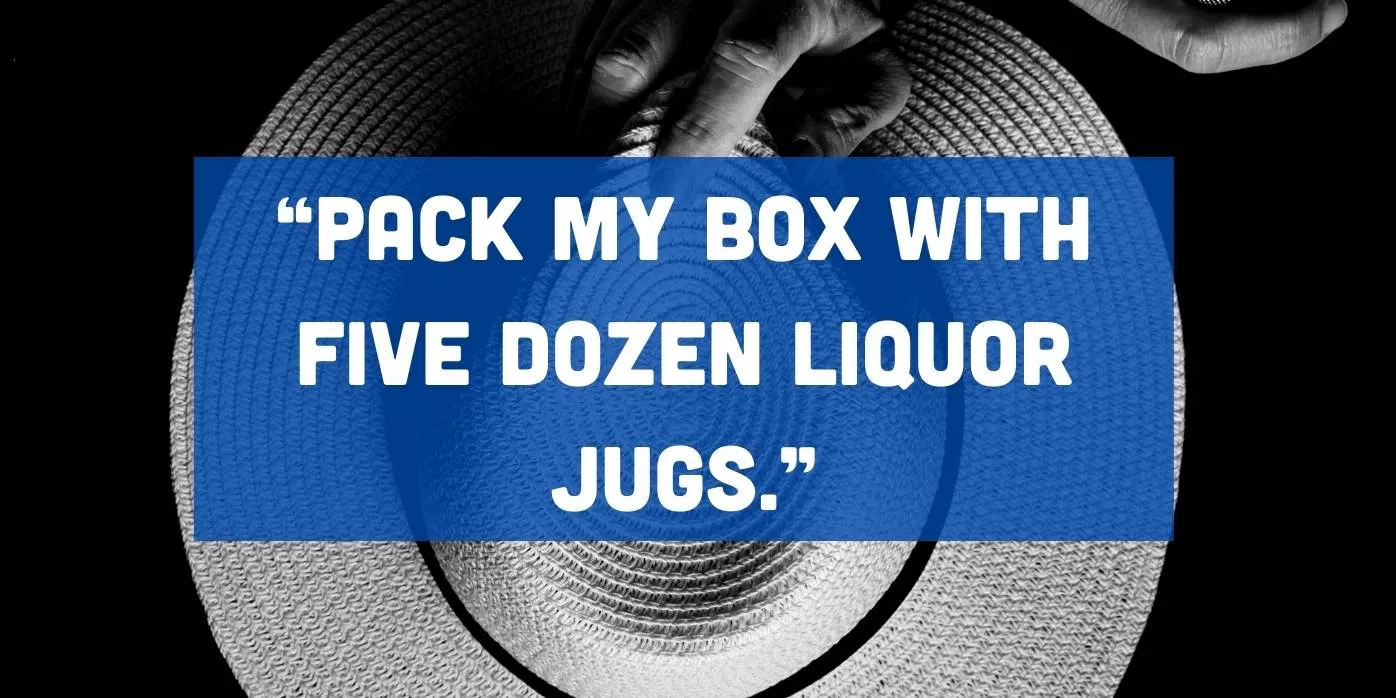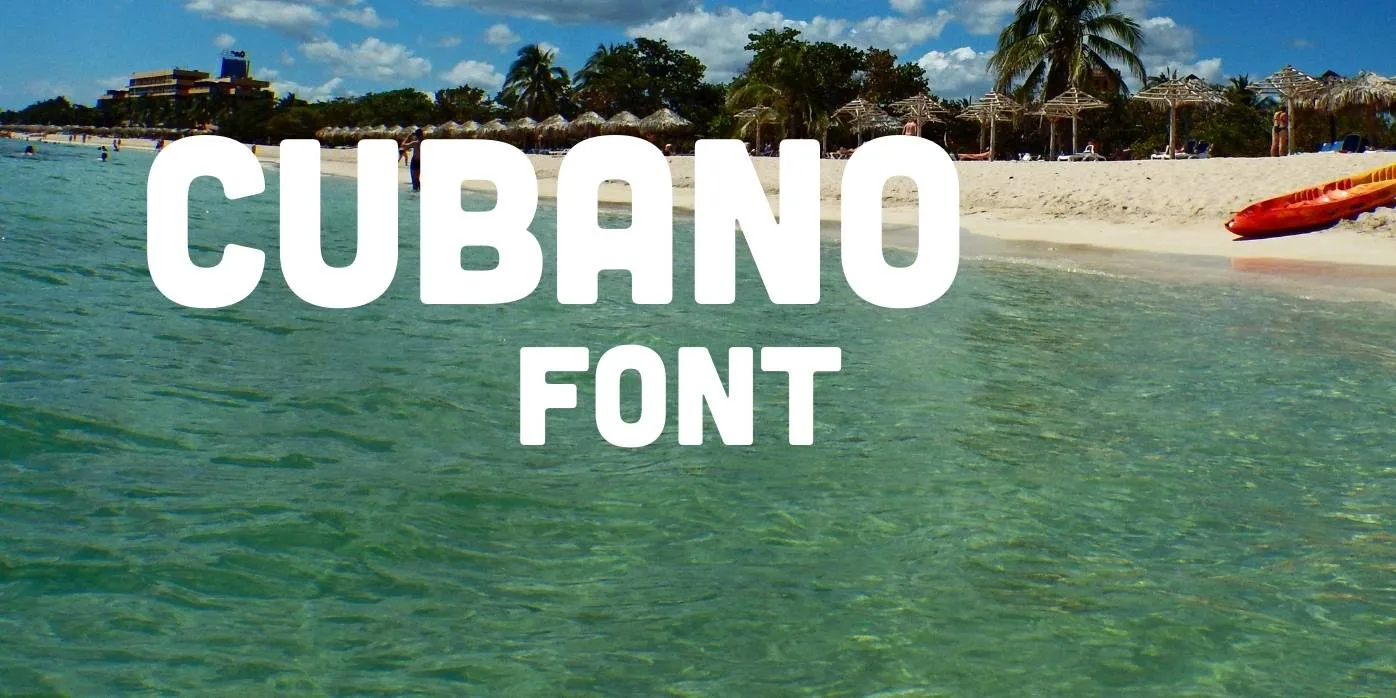
Cubano Font
Cubano Font was designed by Chandler Van De Water. This typeface belongs to the Sans-Serif font family. Cubano has a modern and urban feel to it. This typeface is perfect for headlines, logos, and other creative designs.
This typeface has clean textures. This typeface is specified by the CSS Family. This cute Font is available in four weights. Some of its weights are light and regular.
The lightweight is great for titles and headings, while the regular weight is perfect for body text. Cubano also includes a set of alternate characters to add some variety to your designs. Its copy and paste function is best for different text designs. Archivo Font is one of the most similar to this typeface.
If you’re looking for a stylish and versatile Sans-Serif font, this font is a great choice! This typeface has keen features which is why this might be the best font for you. The Stylish typeface also includes 170 unique Glyphs and has language support for over 30 languages.